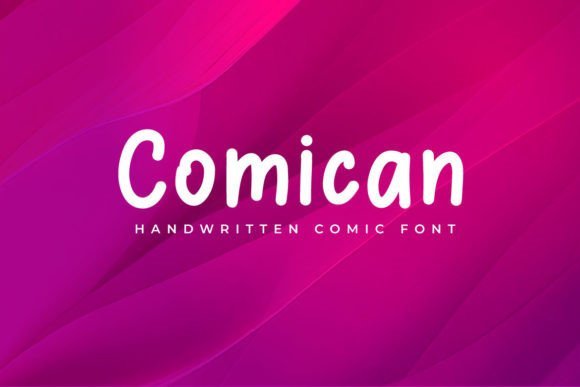
Unlock the Power of Whimsy: Introducing Comican Font
Who hasn’t been inspired by the carefree doodles of their childhood? Remember the joy of creating characters and stories with a simple pencil? For designers, capturing that same sense of whimsy in their work can be a challenge. That’s where the Comican Font comes in – a modern thin handwritten font designed to bring a touch of playfulness to any project.
This versatile font is perfect for children’s books, comics, birthday invitations, and more. Its unique style makes it an excellent choice for designers looking to add a personal touch to their work. Whether you’re creating a logo, cover, or advertisement, the Comican Font is sure to captivate your audience. With its endless possibilities, this font is a valuable addition to any designer’s toolkit.
Comican Font Key Features
- Font Family: Comican is a digital comic font designed to mimic the look and feel of traditional comic book fonts. It is available in several font families, each with its own unique characteristics.
- Unique Characteristics: Comican Font features a distinctive, hand-drawn look and feel, with bold lines, rounded edges, and a range of stylistic alternates and swashes that allow for added creativity and expressiveness.
Comican Font Review
I’ve had the chance to work with the Comican font, and here’s my honest take on it.
- Playful and quirky feel: Comican font has a unique, hand-drawn look that’s perfect for comic books, cartoons, or any project that needs a touch of whimsy.
- Good legibility: Despite its playful nature, the font is surprisingly easy to read, even at smaller sizes.
- Customization options: Comican font comes with a range of weights and styles, making it easy to find the right fit for your project.
- Limited use cases: While Comican font is great for comic books and cartoons, it may not be the best choice for more formal or professional projects.
- Not ideal for body text: Due to its playful nature, Comican font can be overwhelming when used for large blocks of text.
- No OpenType features: This means that Comican font may not work seamlessly with advanced typography features like ligatures or contextual alternates.
Overall, I think Comican font is a great choice for projects that need a playful, hand-drawn look. While it has some limitations, its unique feel and good legibility make it a solid option for the right project.
To get the most out of Comican Font, use it for comic book-style illustrations, graphic novels, and cartoons. You can also use it for titles, headings, and body text in your design. Experiment with different font sizes, colors, and combinations to achieve the desired effect.